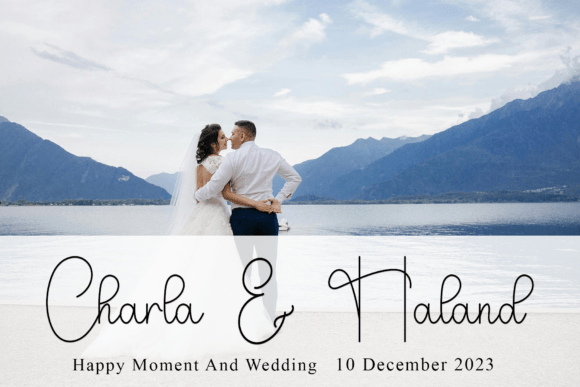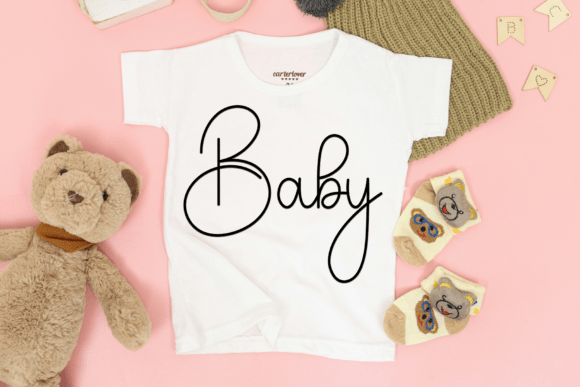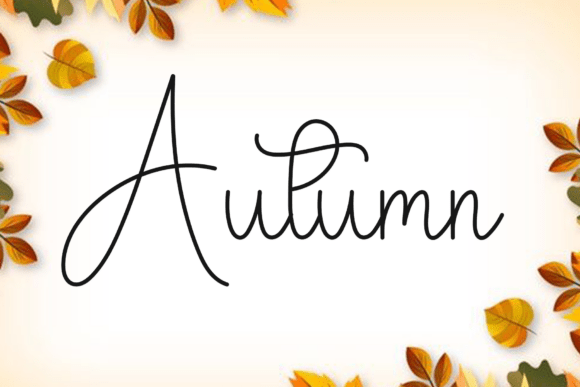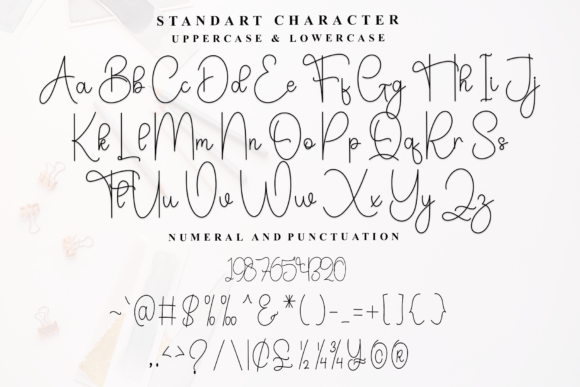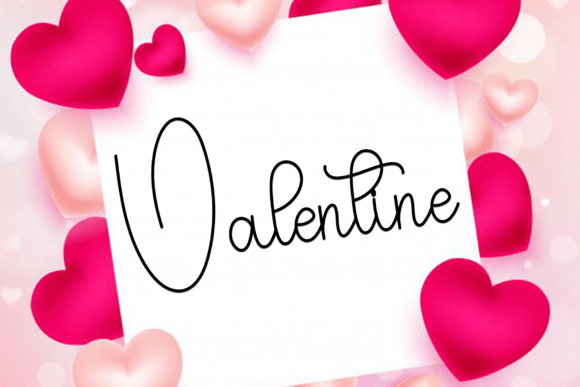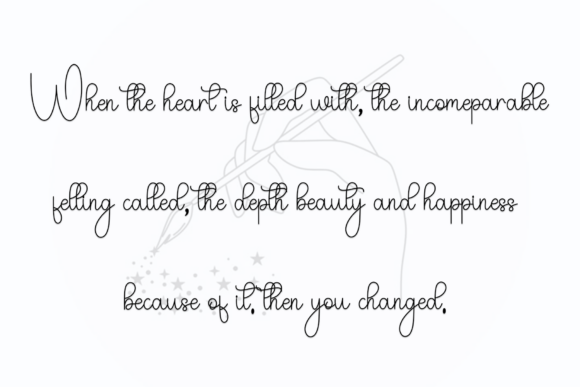
Discover the Elegance of Blackcode Font: Elevate Your Designs with Timeless Charm
In the world of typography, few fonts manage to capture the essence of elegance and timelessness as effectively as the Blackcode Font. This lovely handwritten font has been making waves among designers and crafters alike, and for good reason. Its unique blend of classic charm and modern flair makes it the perfect choice for creating eye-catching logos, branding materials, and quotes that stand out from the crowd.
The Unique Touch of Blackcode Font
One of the standout features of Blackcode Font is its distinctive and beautiful touch. Every letter is carefully crafted to bring a sense of individuality and character to your designs. Unlike more generic fonts, Blackcode’s handwritten style infuses a personal and human element into your work, making it more relatable and engaging to your audience. Whether you’re working on a logo, a branding project, or a set of inspirational quotes, Blackcode Font ensures that each piece carries a unique and memorable signature.
Why Choose Blackcode Font?
So, what makes Blackcode Font the go-to choice for designers and crafters? Here are a few reasons why this font stands out:
- Timeless Appeal: Blackcode Font boasts a classic, timeless quality that never goes out of style. Its elegant lines and smooth curves ensure that your designs remain relevant and stylish for years to come.
- Elegance and Sophistication: The font exudes an air of sophistication and elegance, making it perfect for high-end branding, luxury logos, and premium products.
- Versatility: Blackcode Font is incredibly versatile, suitable for a wide range of design projects, from digital content to print materials.
- Easy to Read: Despite its elegant and cursive nature, Blackcode Font remains highly legible, ensuring that your message is communicated clearly and effectively.
Applications of Blackcode Font
The versatility of Blackcode Font makes it suitable for a myriad of design applications. Here are some of the most popular uses:
- Logo Design: Create stunning logos that leave a lasting impression with Blackcode Font’s unique and memorable style.
- Branding: Elevate your brand’s visual identity with a font that exudes elegance and sophistication.
- Quotes and Posters: Add a touch of class and inspiration to your quotes and posters with Blackcode Font’s beautiful and expressive letters.
- Stationery and Packaging: Enhance your stationery and packaging designs with a font that offers both style and readability.
Tips for Using Blackcode Font Effectively
To get the most out of Blackcode Font, consider the following tips:
- Pair with Complementary Fonts: Combine Blackcode Font with simpler fonts to create visual contrast and hierarchy in your designs.
- Experiment with Colors: Don’t be afraid to play with different colors to find the perfect match that enhances the elegance of Blackcode Font.
- Adjust Letter Spacing: Fine-tune the letter spacing to ensure optimal readability and aesthetic appeal.
Blackcode Font is more than just a font – it’s a design statement. Its timeless elegance, unique charm, and versatility make it an invaluable asset for designers and crafters looking to create stunning visual content. Whether you’re aiming to craft eye-catching logos, sophisticated branding materials, or inspiring quotes, Blackcode Font is the perfect choice. Embrace the beauty of Blackcode Font and elevate your designs to new heights of creativity and sophistication.